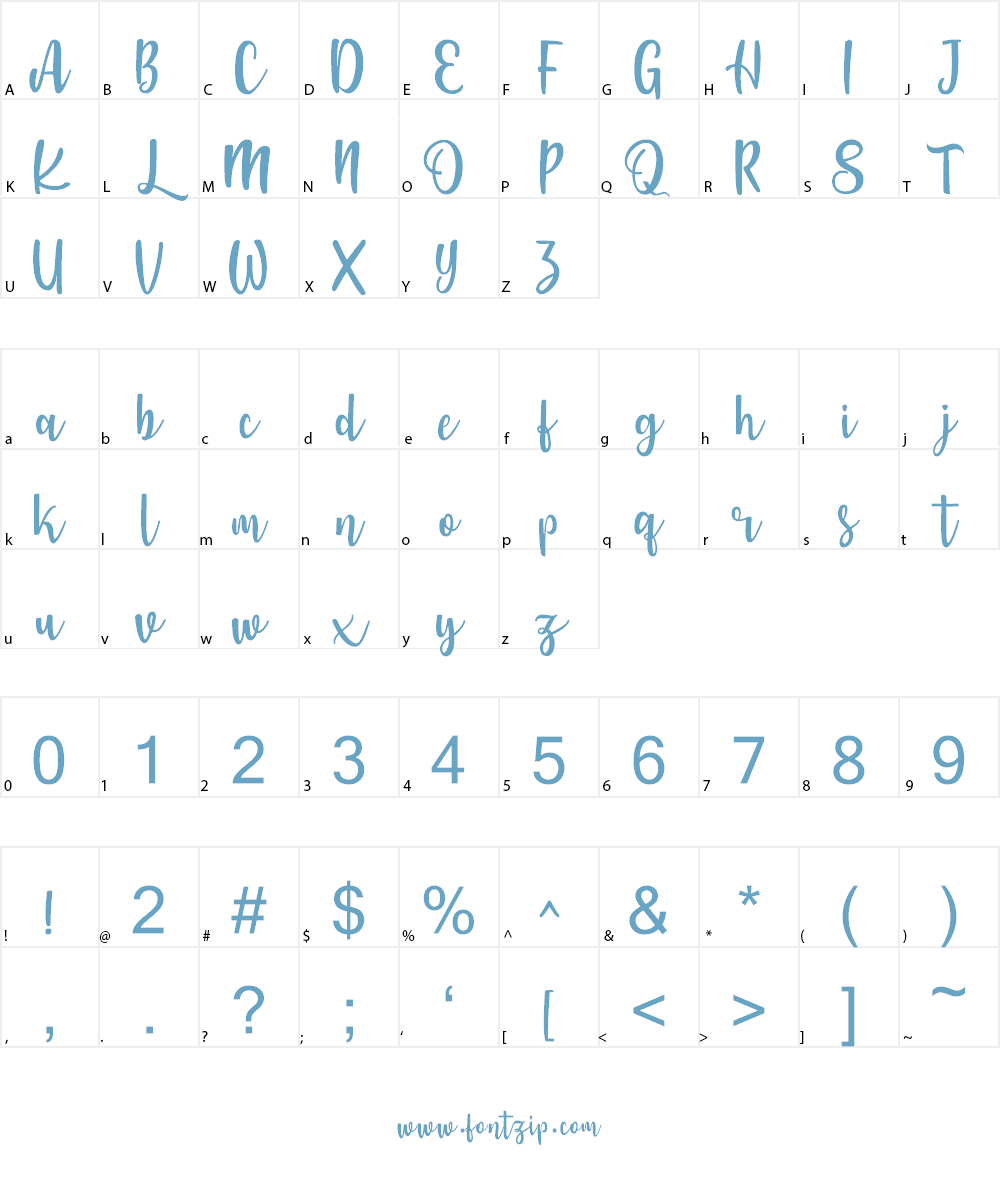
Introducing my new font, Langrish Font Duo made with a pen brush refined to look neat. like dance letters, smooth, clean and simple. Langrish Font Duo are perfect for weddings, events, invitations, escort cards, table numbers, Quotes, displays, logos, blog sliders, special addresses, stamps, packaging, greeting cards, etc.
Features:
- Basic Latin A-Z and a-z
- Numeral & Punctuation
- Ligatures
- 10 Alternate
- Swashes
- Script 592 Glyphs
- Sans 354 Glyphs
- Latin Pro Support Character